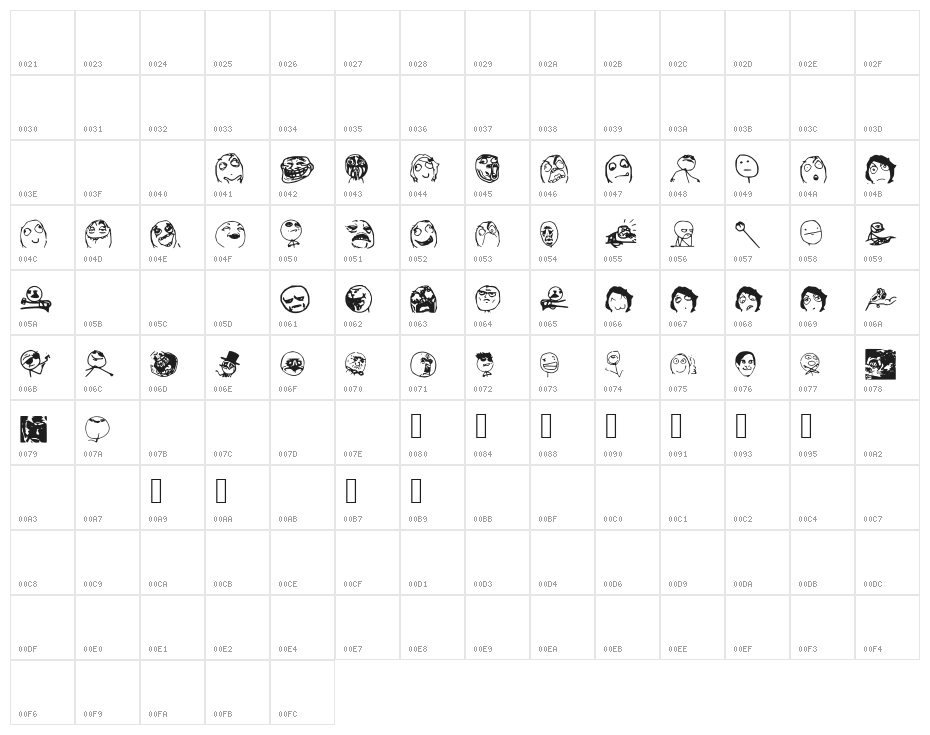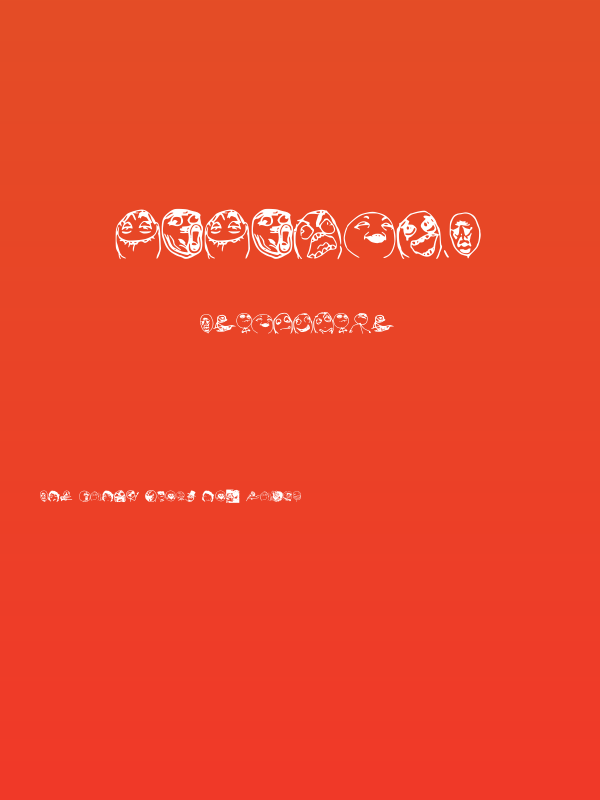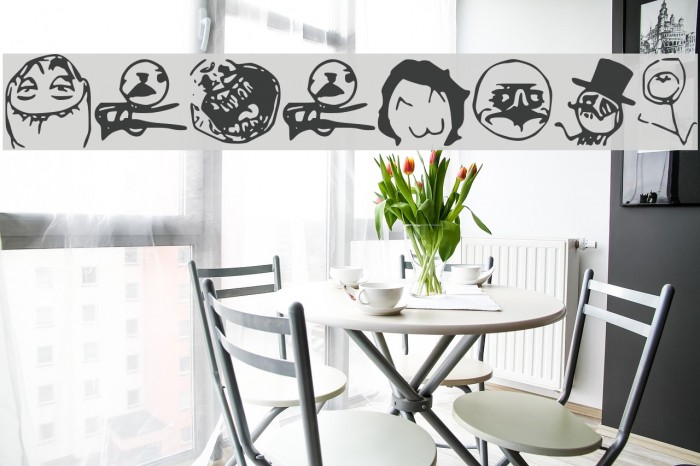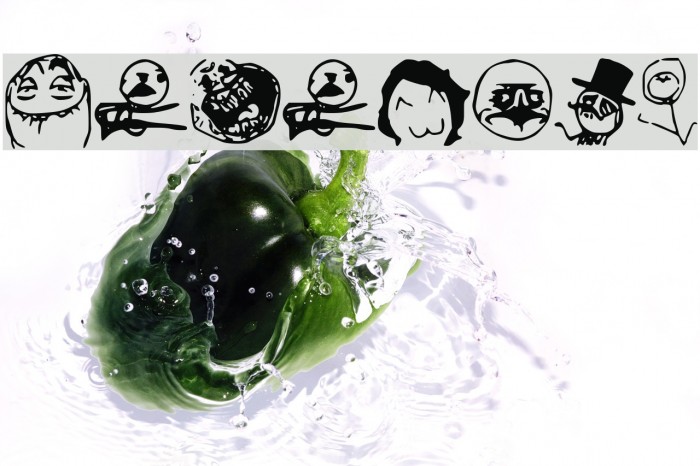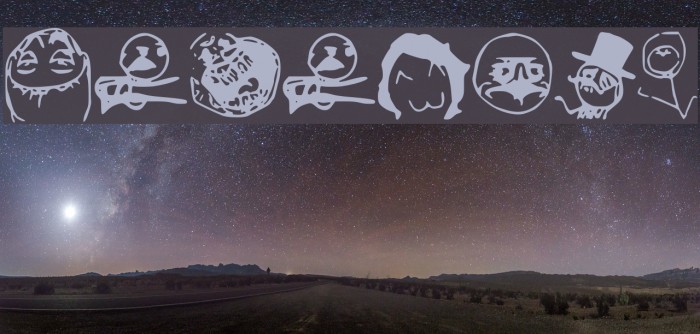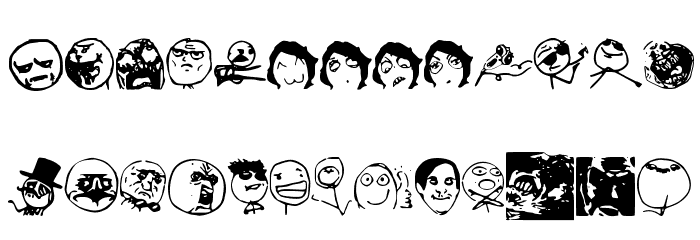
Memefont2 Font
Memefont2 Description
A decorative font composed entirely of various expressive meme faces and characters, each glyph representing a different internet meme or reaction image, rendered in a hand-drawn, cartoonish black-and-white style.
| Overall Style | Decorative, Humorous, Cartoonish |
| Use Case | Logos, Posters, Social Media, Memes |
| Proposed Projects | Social media graphics, meme creation, humorous posters, novelty merchandise, digital stickers. |